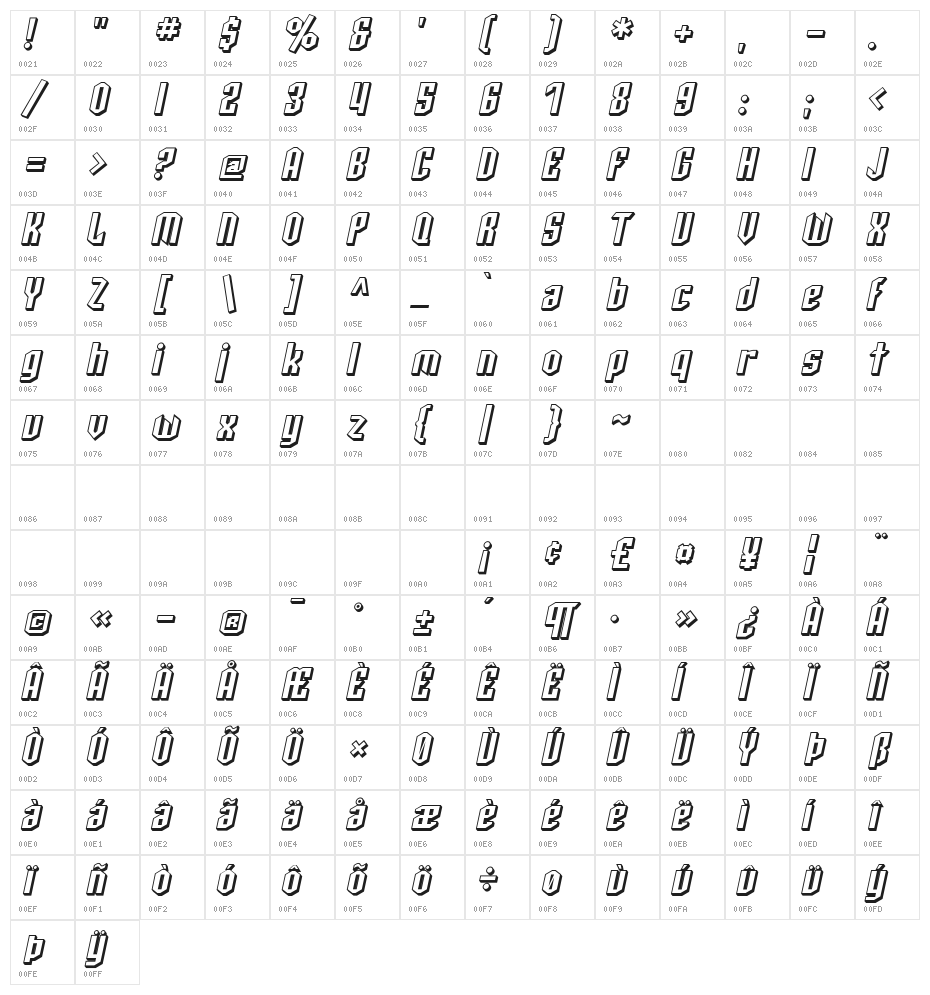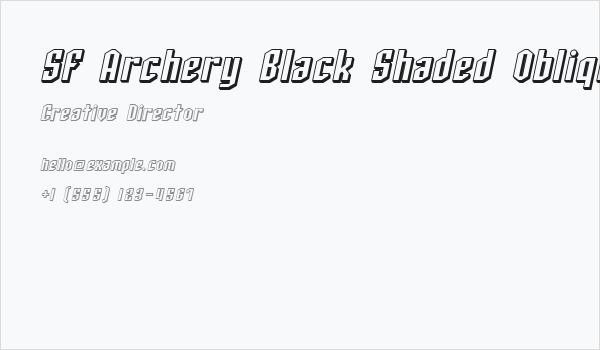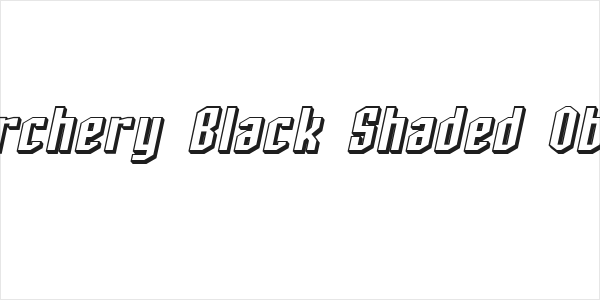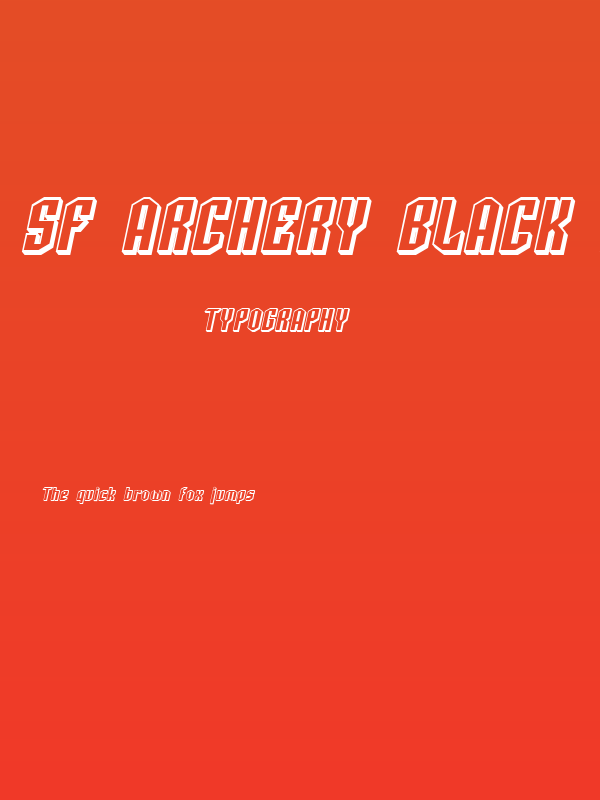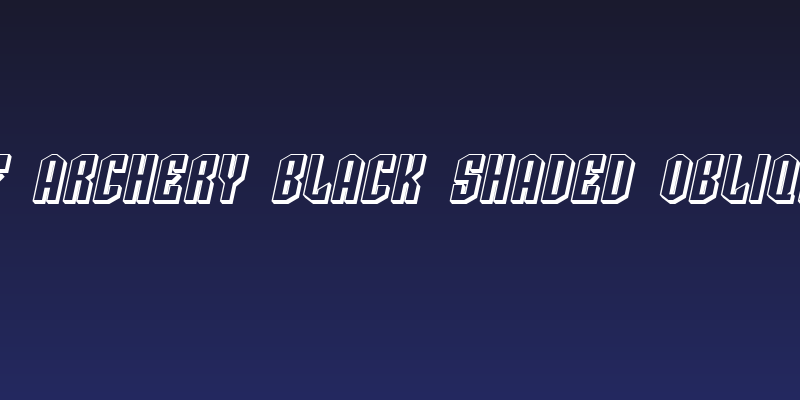
SF Archery Black Shaded Oblique Font
SF Archery Black Shaded Oblique Description
This font features a bold, dynamic style with a shaded, oblique design that gives it a three-dimensional appearance. The characters are outlined, creating a striking contrast between the filled and unfilled spaces. The uppercase and lowercase letters maintain a consistent slant, enhancing the sense of movement and energy. The numerals and special characters follow the same design principles, ensuring uniformity across all glyphs. This font's unique style makes it ideal for projects that require a strong visual impact.
| Proposed Projects | Ideal for sports branding, posters, video game titles, and dynamic logos. |